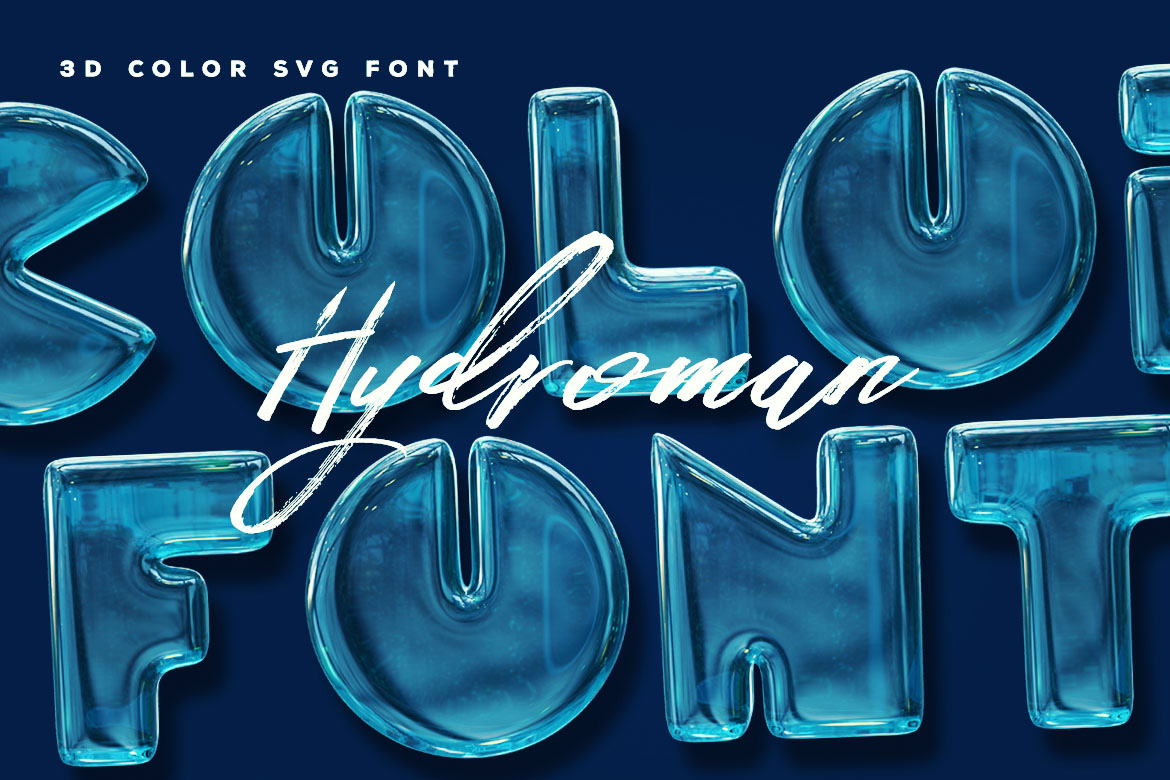
Hydroman 3D Color SVG Font
Hydroman 3D Color SVG Font is perfect for water sports branding, aquatic entertainment venues, swimming pool signage, marine adventure companies, water park graphics, hydro-themed gaming applications, oceanic marketing materials, and dynamic liquid-inspired designs.
Hydroman 3D Color SVG Font is exciting because it captures the fluid power of water with innovative 3D color technology that creates realistic liquid effects and dynamic wave patterns. Its aquatic character evokes the energy and movement of flowing water that perfectly captures the essence of hydro adventures and marine experiences.
Hydroman 3D Color SVG Font family includes full-color 3D variations with water-inspired effects and aquatic decorative elements, providing designers with comprehensive options for creating dynamic typography solutions that project water power and marine authenticity.
Hydroman 3D Color SVG Font Free Download delivers premium aquatic typography that embodies the powerful appeal of water sports and marine adventures. This innovative typeface demonstrates exceptional creative craftsmanship through its realistic water effects and dimensional color construction that creates genuine aquatic appeal without sacrificing digital functionality. The font's dynamic personality makes it particularly suitable for water parks, marine entertainment venues, aquatic sports companies, and hydro-themed brands seeking to establish powerful visual identity that connects with customers seeking authentic water experiences and marine adventures.
Creative professionals consistently select Hydroman 3D Color SVG Font for projects requiring aquatic authenticity and water-themed visual impact. Its dynamic character works magnificently in water sports venues, marine entertainment centers, aquatic marketing campaigns, and hydro-themed applications where fluid movement and water personality drive audience engagement. The font's 3D nature creates memorable brand experiences that immerse audiences in dynamic water environments and marine excitement.
Design teams appreciate Hydroman 3D Color SVG Font's ability to create instant brand recognition through its distinctive water character and powerful aquatic appeal. Its dynamic styling transcends traditional water typography while maintaining the fluid impact required for marine market positioning, making it an essential tool for brands seeking to establish powerful connections through superior aquatic typography and exceptional water communication.